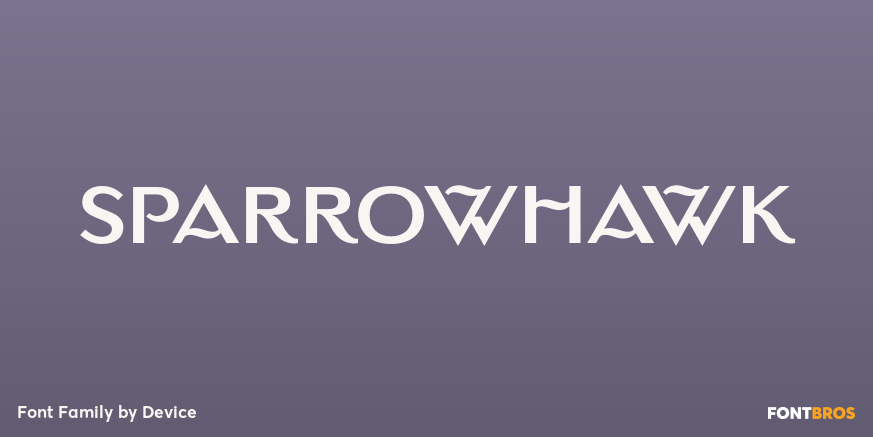
HomeFont BrosArt Deco (1910-1935)Sparrowhawk Art Deco (1910-1935)Sans SerifHistorical Sparrowhawk FacebookXPinterestWhatsApp 1 of 1 About Sparrowhawk Sparrowhawk, a capitals only titling, evokes a suburban English gentility.  DOWNLOAD NOW People also explored Baby Blue Bella Canvas 3001 Mockup White Simple Home Font Anehik Font Broughtes Font Osterbar Font Gattone Font Simply Be Font Bunny Easter Font Quoote Font 235 0 TagsSparrowhawk Font Previous articlecharlieMOONNext articlePrison Pro LEAVE A REPLY Cancel reply Comment: Please enter your comment! Name:* Please enter your name here Email:* You have entered an incorrect email address! Please enter your email address here Website: Save my name, email, and website in this browser for the next time I comment. Personal Use Free Bebas Neue Font Personal Use Free Read more about this font BD Nokio Personal Use Free Read more about this font Boronic Personal Use Free Read more about this font Anggraini Personal Use Free Read more about this font BLOG To increase your work productivity, choose the most readable fonts. In today's fast-paced work environment, where digital communication and information consumption are integral to our daily routines, the choice of fonts can significantly impact... Modern Sans-Serif Fonts That Brands Love in 2025 How to Cut Any Font on Cricut: Convert a Font to SVG (Free) Best Fonts for T-Shirt Design – Top 2025 Picks